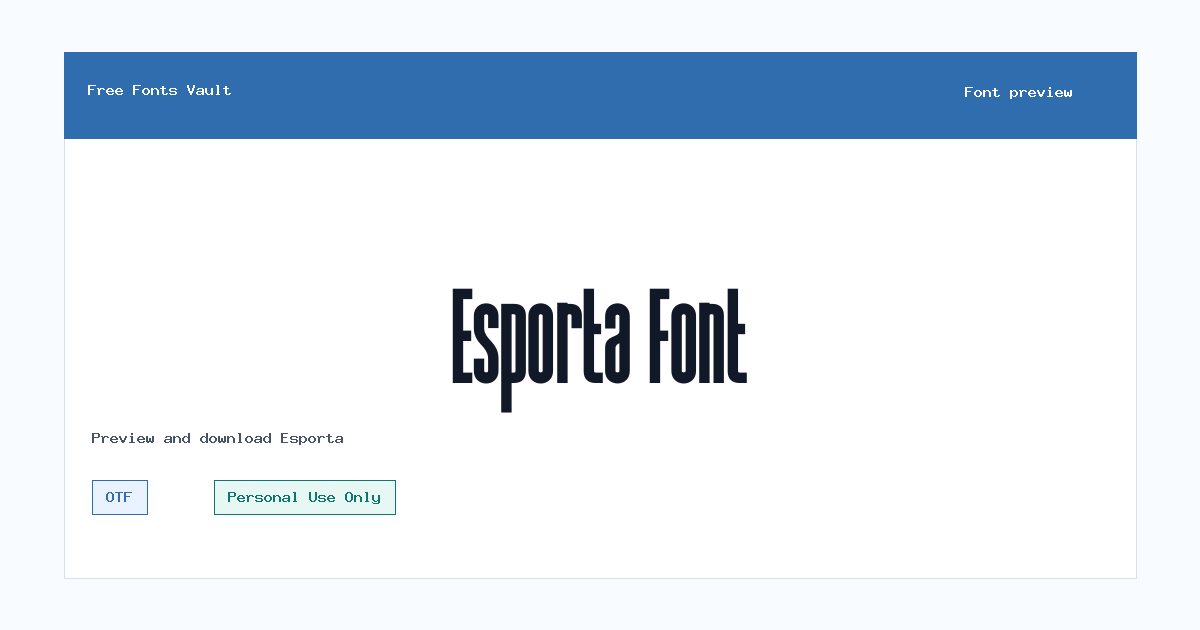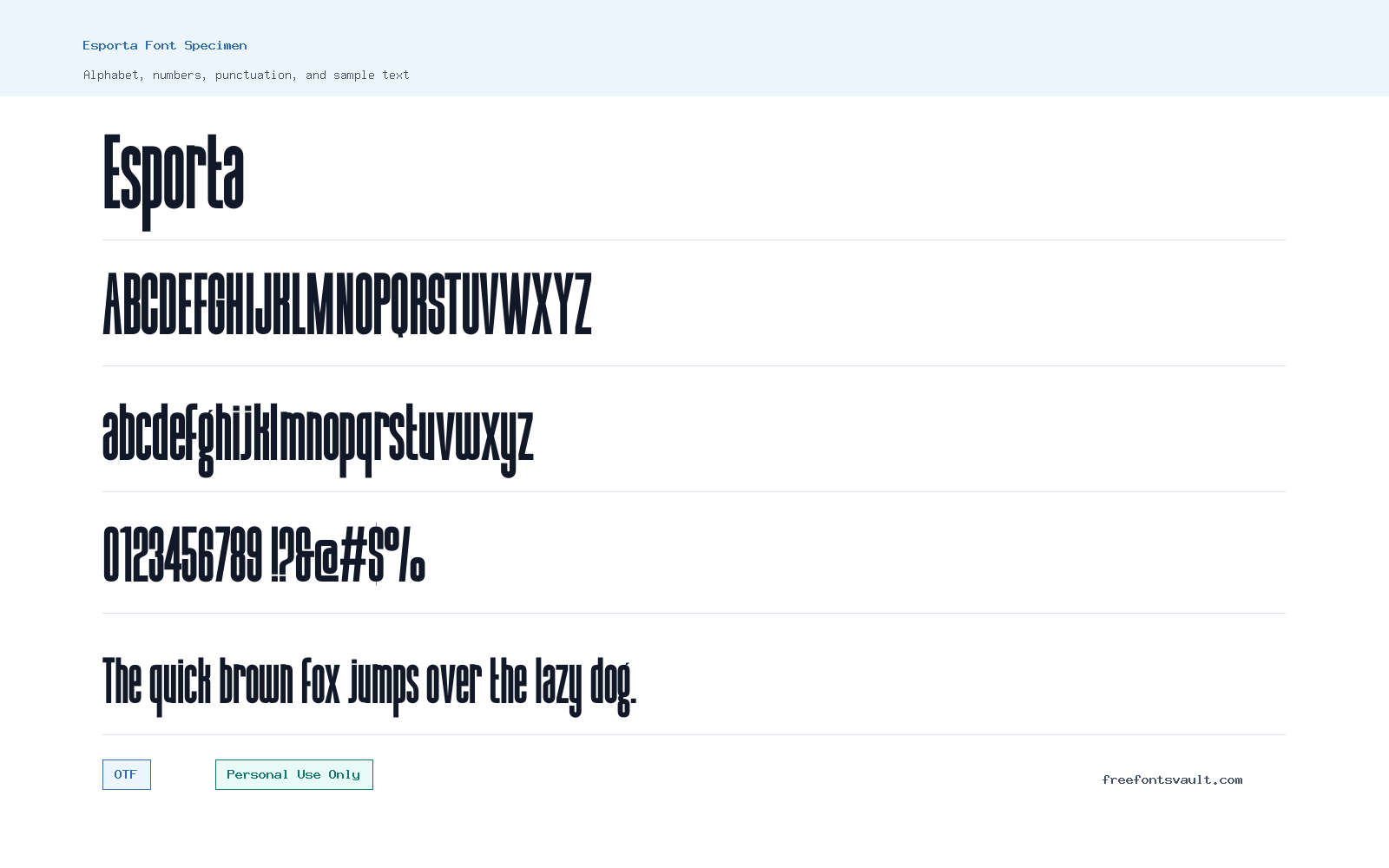
Esporta
Esporta font.
Esporta is a sans serif font from Funtype Co. with a single regular OTF style. It is best treated as a personal-use display and layout font: preview it with your own words, test the spacing, and check the license limit before using it in any public or client project.
About Esporta Font
Esporta keeps things simple with one regular style in OTF format. Because there is only one listed weight, it works best when you need a clear headline, label, short title, or mockup type treatment rather than a full multi-weight typography system. Try it in the live preview with the exact wording you plan to use, especially if your design includes all caps, numbers, short brand names, or tight poster headlines.
A single regular cut can still do a lot when it is used with care. Keep Esporta for larger text where the letter shapes have room to show, and pair it with a quieter body font for paragraphs. A neutral serif or a highly readable sans serif can handle longer copy while Esporta carries the title, section label, badge, or short callout. If your layout needs strong hierarchy, build contrast through size, spacing, weight from the companion font, or color rather than expecting Esporta to provide a full family range.
For logo drafts, test the name at several sizes and with different letter spacing. Short names may benefit from slightly wider tracking, while longer words may need more breathing room around the edges. For posters, check how it behaves in both compact and oversized settings. For web mockups, use it in hero headings, navigation experiments, or button concepts, but avoid relying on it for long reading blocks until you have checked readability across desktop and mobile sizes.
- Sans serif family style
- Single listed weight: 400 regular
- Suited to short display text and layout tests
- Poster titles and event-style graphics
- Logo concepts and early brand exploration
- Web hero mockups and landing page headings
- Social media artwork and presentation covers
- Short labels, badges, and callout text
Use Esporta where a clean sans serif can carry short text. Test your exact wording before download, especially logos, all-caps headlines, numerals, punctuation, and any accented characters you need. Pair it with a more readable body font for paragraphs and use Esporta mainly for display roles.
What kind of font is Esporta?
Esporta is listed as a sans serif font with a regular style and 400 weight.
Is Esporta good for body text?
It may work for short labels or brief lines, but only one regular style is listed. For long paragraphs, pair it with a proven reading font and use Esporta for headings or accents.